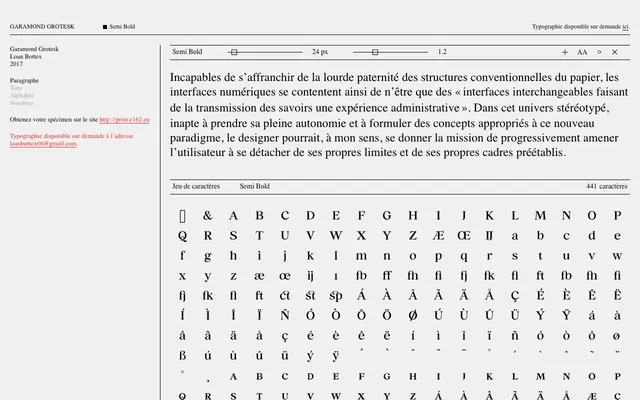
Garamond Grotesk
E162 · Loan Bottex · 2017
A grotesque sans drawn from Garamond's classical structures by Loan Bottex, available on request from the E162 foundry.
Released in 2017 by Loan Bottex under the E162 label, Garamond Grotesk takes the proportions and skeleton of Garamond and reinterprets them through a sans-serif grotesque lens. Currently available in a single Semi Bold weight with a character set of 441 glyphs, the typeface is distributed on request rather than through a conventional retail channel. The project sits within a broader inquiry into digital interfaces and the inherited conventions of print typography.
The name references Garamond as a historical serif source, but the typeface is presented as a grotesque sans-serif, suggesting a hybrid drawing that strips serif structures from classical Garamond forms.